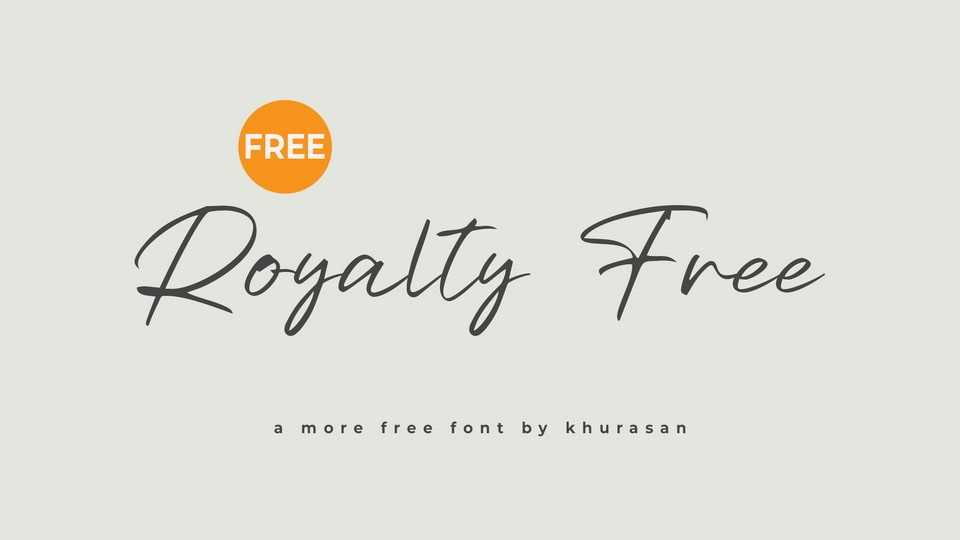
Download Royalty Free font, a natural and expressive handwritten typeface designed to make a statement. Its strong strokes and energetic shapes give it a confident personality.